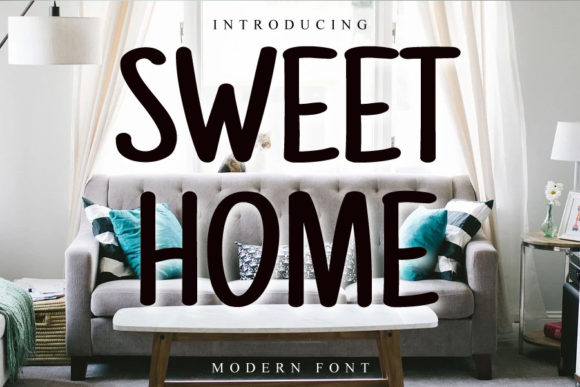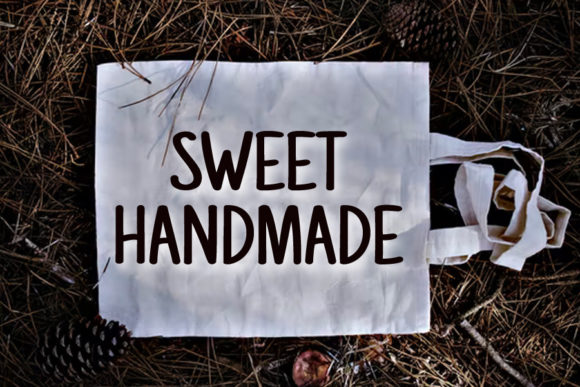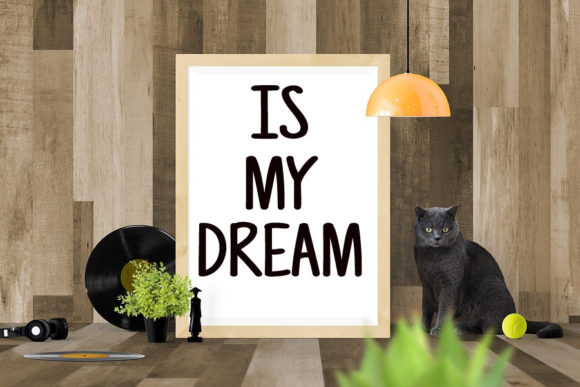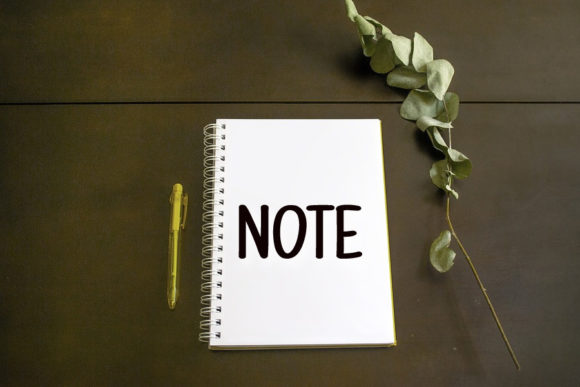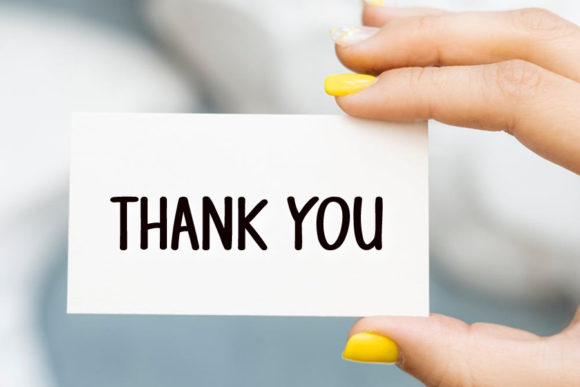
Sweet Home Font
About Sweet Home Font
“Sweet Home” is a fresh and beautiful font that proves to be versatile for a variety of design purposes. Whether you’re working on YouTube banners, cover logo mockups, wedding invitations, ID cards, flyers, or various crafts, this font adds a delightful touch to your projects. By incorporating “Sweet Home” into your designs, you can enhance the overall aesthetic, making it suitable for a range of creative applications.
The simplicity and uniqueness of “Sweet Home” contribute to its adaptability, allowing it to stand out in different design contexts. Its fresh and beautiful appearance brings a sense of charm and appeal to your creations, making it a valuable asset for various visual projects.
Moreover, the font’s versatility makes it suitable for businesses looking to progress and develop their visual identity. Whether you’re a content creator, event planner, or business owner, “Sweet Home” offers a simple yet distinctive option to elevate your brand and design materials.
In summary, “Sweet Home” is more than just a font; it’s a fresh and beautiful addition to your design toolkit. Its simplicity and uniqueness make it suitable for a range of purposes, contributing to the progress and development of your visual identity. Embrace the delightful and charming vibe of “Sweet Home” to create eye-catching and memorable designs for your business or creative projects.